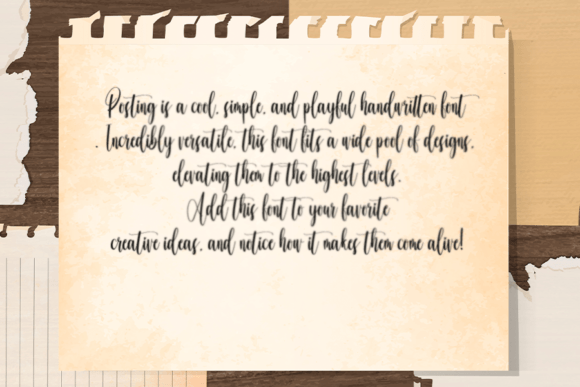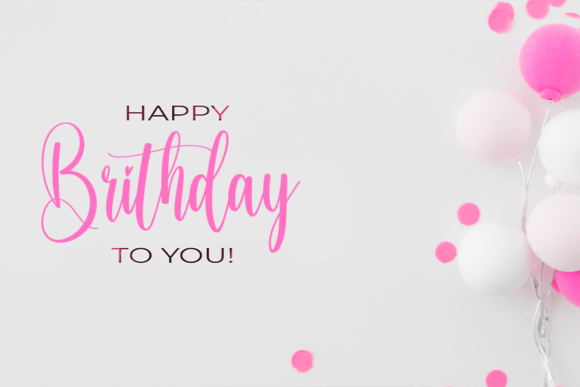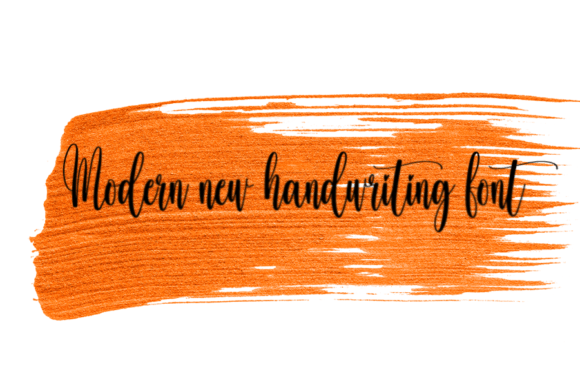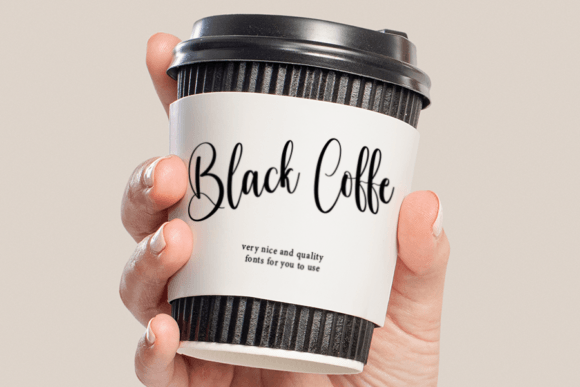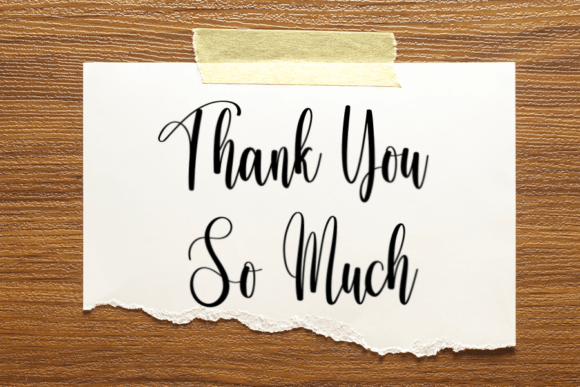
Introduction to Posting Font
Do you remember that moment when a single design element brings your entire creative project to life? For designers, it’s those ‘aha’ moments that make all the difference. You’ve spent hours perfecting your layout, but something is missing. Then, you stumble upon a font that changes everything. For many, that magic font is Posting Font – a cool, simple, and playful handwritten font that’s about to take your designs to new heights.
As a valuable design resource, Posting Font is incredibly versatile, effortlessly elevating a wide range of designs to their highest potential. With its free download available, you can easily incorporate this high-quality font into your next creative project, giving it a unique touch that sets it apart from the rest. Whether you’re working on a project with a transparent background or a bold, eye-catching layout, Posting Font is sure to make a lasting impression.
Key Features of Posting Font
- High-quality design: Posting Font is a premium design resource, ideal for creative projects that require a sophisticated and modern look.
- Unique characteristics: This font features a unique blend of modern and vintage elements, making it a standout choice for designers looking to add a touch of elegance to their creative projects.
Honest Review: Posting Font
As a designer, I’m always on the lookout for new and exciting design resources to elevate my creative projects. I recently stumbled upon Posting Font, and I’m excited to share my honest review with you.
What works well about Posting Font is its unique, hand-drawn aesthetic. The font is perfect for adding a personal touch to your designs, and it’s great for creating a sense of warmth and approachability. The font is also highly customizable, making it easy to adjust the size, color, and spacing to fit your needs.
- Unique, hand-drawn aesthetic
One thing that’s worth noting is that the font doesn’t come with a transparent background option, which may be a limitation for some designers. Additionally, the font is not suitable for large-scale or professional use, as it may not be legible at very small sizes.
Overall, I think Posting Font is a great design resource for creative projects and personal designs. While it may have some limitations, its unique aesthetic and high-quality design make it a valuable addition to any designer’s toolkit.
Posting Font
Posting Font is a versatile and high-quality design resource perfect for creative projects. It features a transparent background, making it easy to overlay on images or use as a standalone element.
Posting Font is commonly used in:
- Social media graphics and ads
- Infographics and data visualizations
Tips for Getting the Most Out of Posting Font
To maximize the potential of Posting Font, experiment with different font sizes, colors, and styles. Combine it with other design elements, such as images and graphics, to create visually appealing content.
Alternatives to Posting Font
Lato Font is a modern sans-serif font that is perfect for creative projects requiring a clean and transparent background. It’s available for free download and comes in multiple weights, making it a great design resource for various design needs. Lato Font is a great alternative to Posting Font when you need a more minimalist and elegant look for your design project.